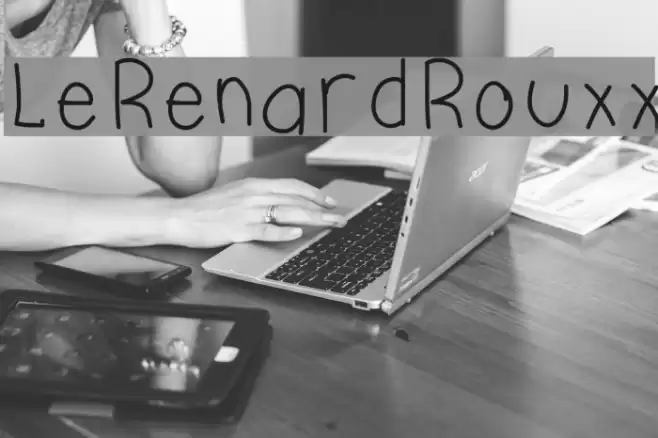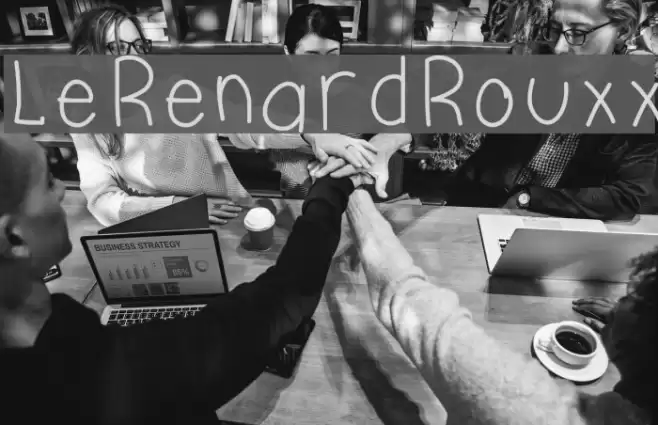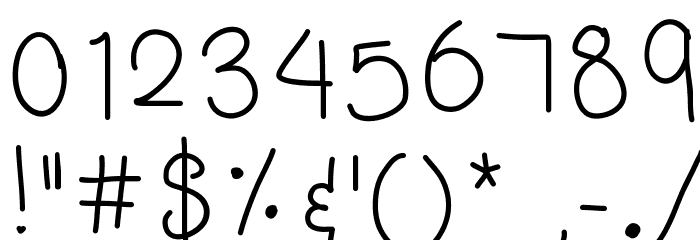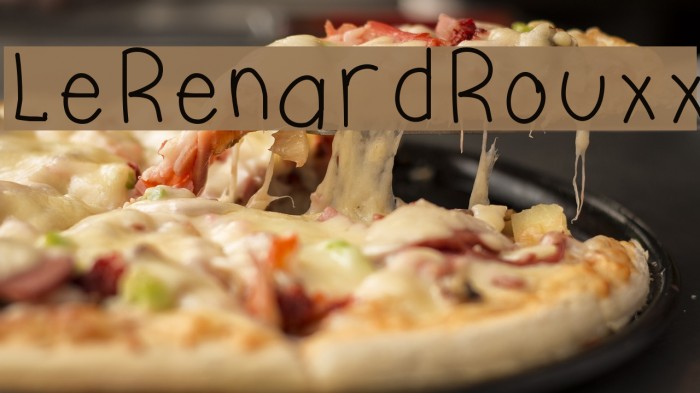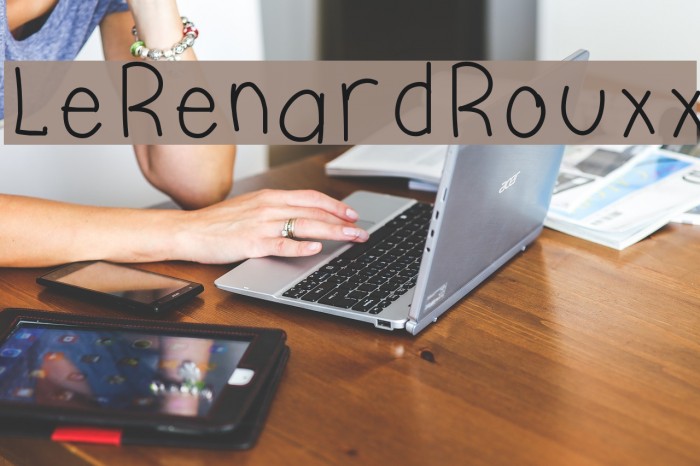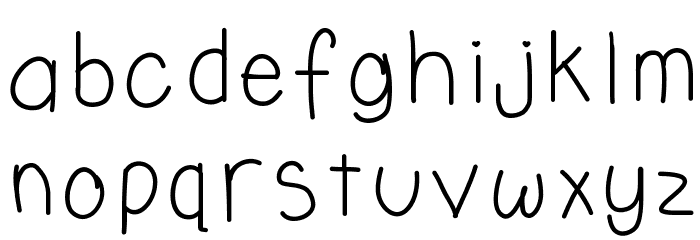
LeRenardRouxx Font
LeRenardRouxx Description
This playful and whimsical font features a handwritten style with a casual and friendly appearance. The letters are slightly uneven, adding to its charm and informal feel. The strokes are consistent in thickness, providing a uniform look across all characters. The uppercase and lowercase letters maintain a cohesive style, with rounded edges and a slight tilt that gives a sense of movement. The numbers and special characters are designed to match the overall aesthetic, making it versatile for various uses. Its simplicity and readability make it suitable for projects that require a personal touch.
A playful handwritten font with a casual and friendly style from Uncategorized fonts.
- Proposed Projects: Ideal for children's books, greeting cards, personal blogs, and informal branding.
- Overall Style: Casual
- Use Case: Headlines, Informal text, Personal projects